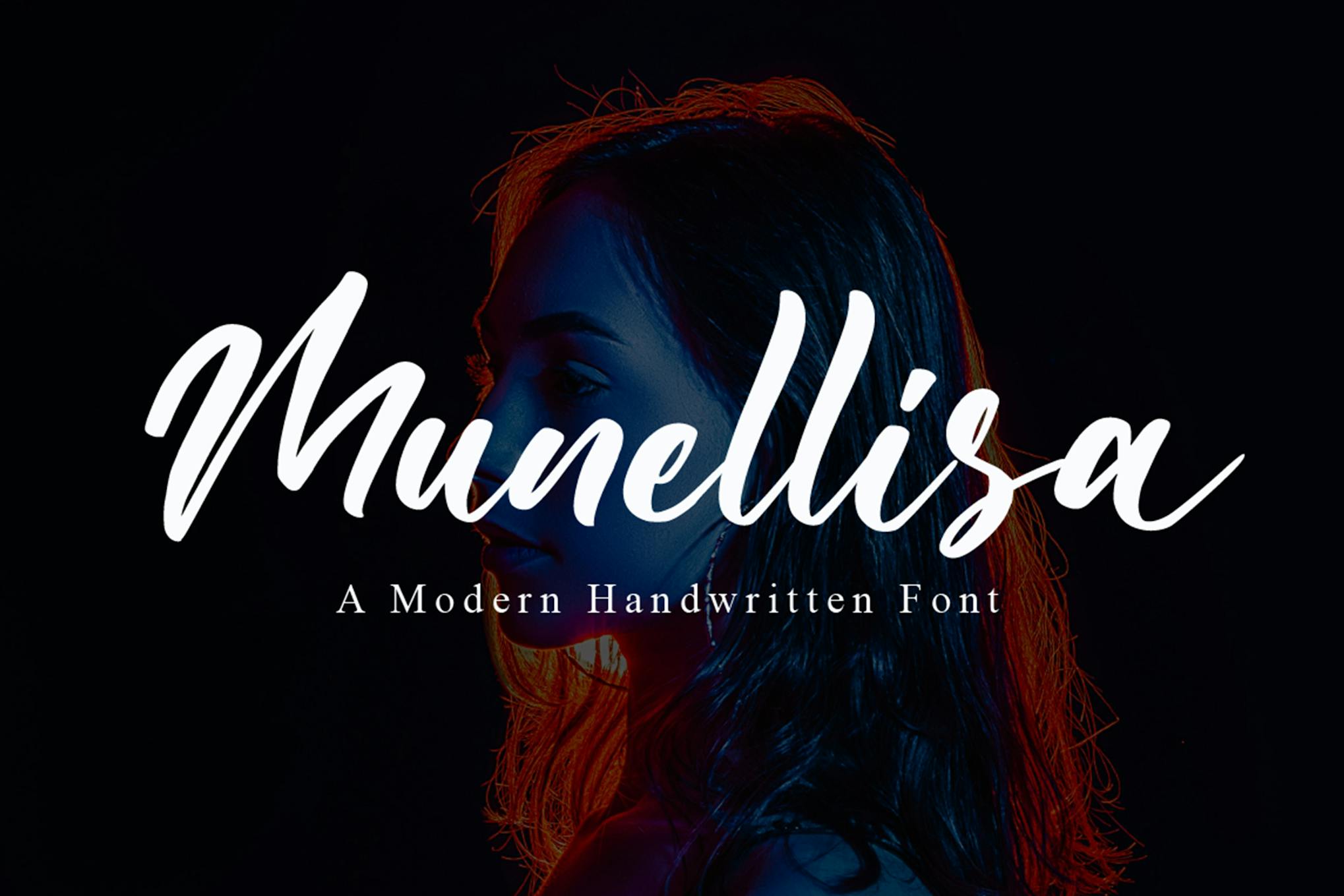
Munellisa - Wedding Font
The Munellisa - Wedding Font excels in enchanting design applications including magical wedding invitations, enchanting bridal branding, mystical ceremony logos, charming product packaging, enchanting business cards, magical portfolios, charming greeting cards, mystical social media graphics, enchanting event signage, and magical marketing materials. Its enchanting script style makes it perfect for projects requiring mystical elegance that communicates charm and establishes magical brand positioning with audiences seeking enchanting wedding experiences and mystical sophistication.
What makes the Munellisa - Wedding Font genuinely exciting is its exceptional ability to capture the magical charm and enchanting beauty of mystical weddings through charmingly crafted letterforms. The font features flowing, enchanting strokes with magical flourishes and charming proportions that create a distinctly mystical appearance. Each character displays remarkable attention to enchanting detail with magical curves, charming connections, and mystical spacing that give text a beautifully enchanting, hand-lettered quality. The font's magical character and enchanting rhythm create an atmosphere of mystical charm while maintaining enchanting sophistication and wedding authenticity.
The Munellisa - Wedding Font family typically includes regular weight with extensive character coverage, featuring uppercase and lowercase letters, numerals, punctuation marks, and international characters. The typeface often incorporates stylistic alternates, contextual ligatures, and magical swashes that enhance its signature enchantment. These additional elements provide designers with creative flexibility to customize text appearance and achieve more natural-looking enchanting handwriting that reflects the font's magical and charming character.
This enchanting signature font distinguishes itself through its remarkable balance of magical charm and sophisticated elegance. Unlike ordinary or mundane fonts that lack mystical appeal, Munellisa - Wedding Font embraces the power of enchanting design to create magical connections with mystical wedding audiences. The font's charming character makes it essential for enchanting wedding planners, magical brands, and mystical celebration businesses where creating charming wedding experiences and enchanting memories is fundamental to success in magical wedding markets.